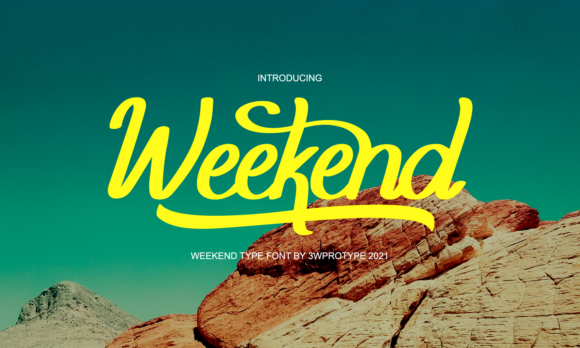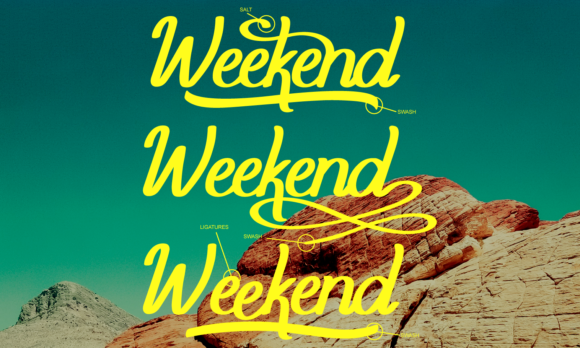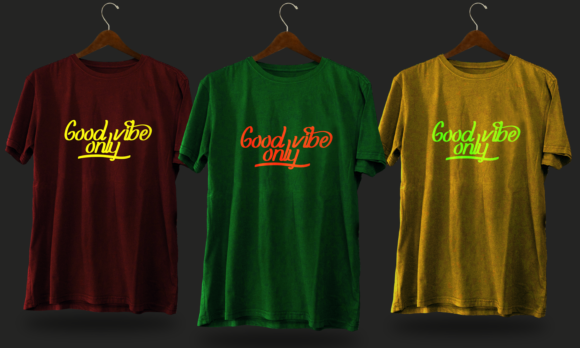
About Weekend Font
Weekend is a concise and natural handwritten font. It is suitable for logos, shops, and other formal needs such as clothing, t-shirts, invitations, labels, magazines, books, greeting cards, wedding cards, and so much more. This font is PUA encoded which means you can access all of the glyphs and swashes with ease!Â